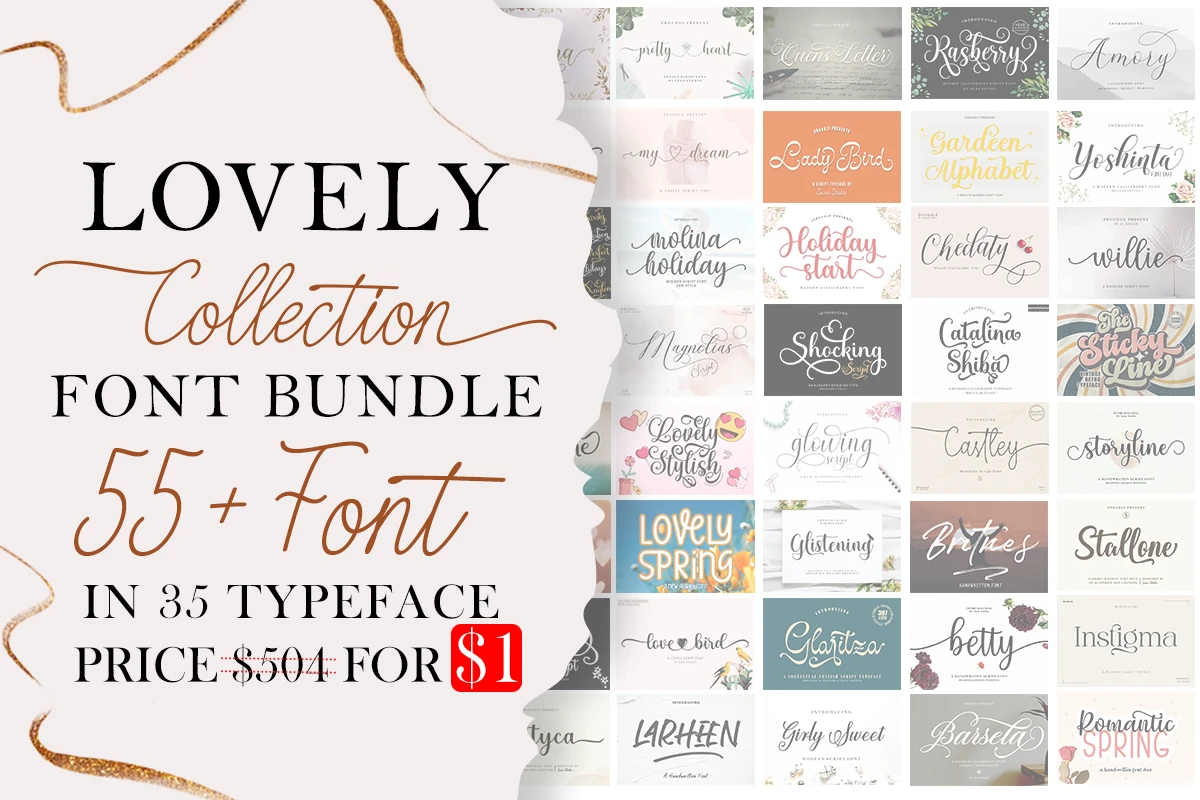
Introducing the Lovely Collection Font Bundle — a beautiful set of 55+ premium fonts across 35 typefaces, thoughtfully designed to meet every creative need. This bundle brings together a charming mix of script, serif, and handwritten styles, making it perfect for adding warmth and personality to your designs.
Use these fonts for wedding invitations, branding, greeting cards, logos, packaging, quotes, social media posts, and handmade crafts. Each typeface is designed with elegance, readability, and versatility in mind, offering hundreds of alternates, ligatures, and multilingual support.